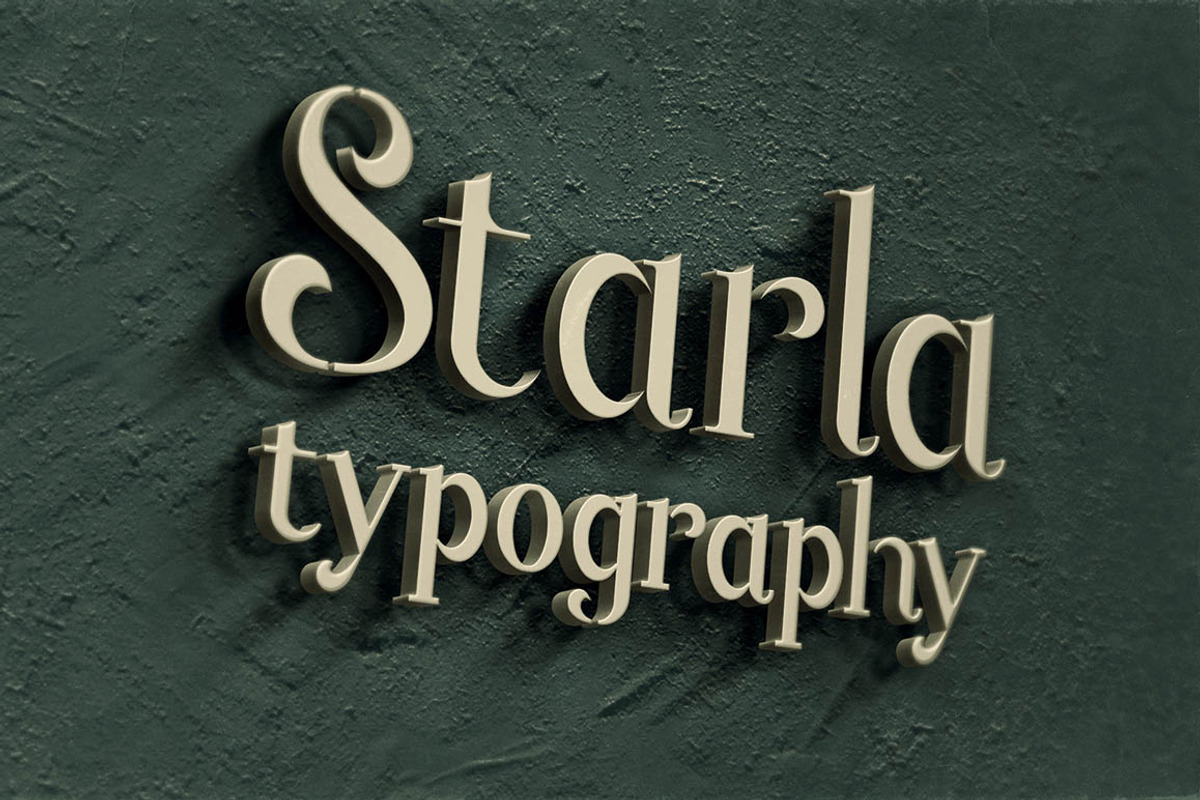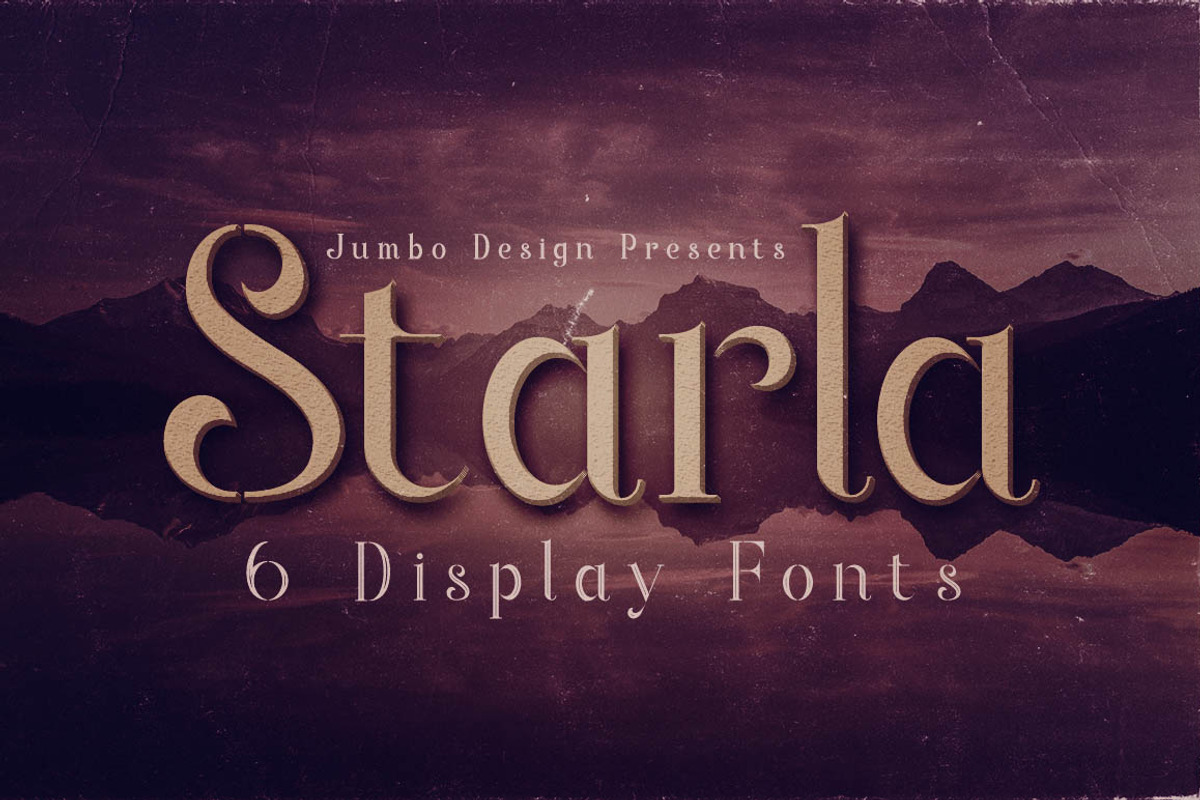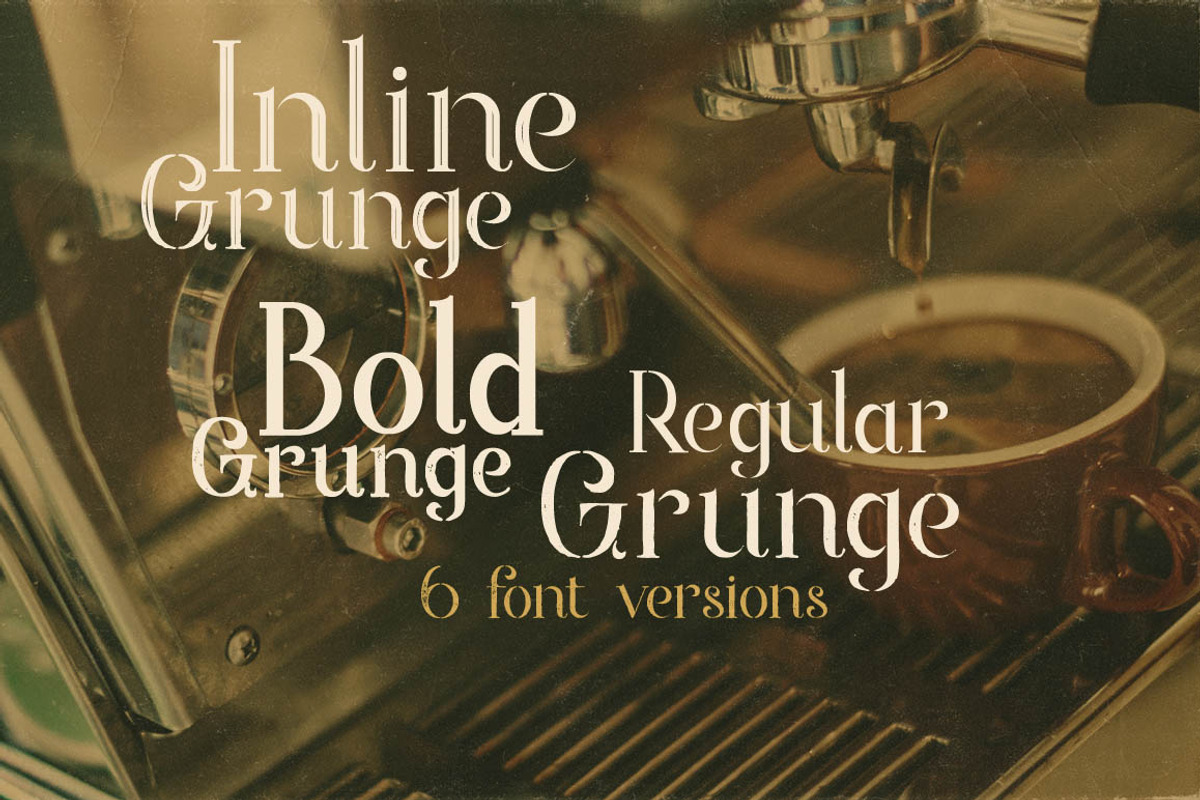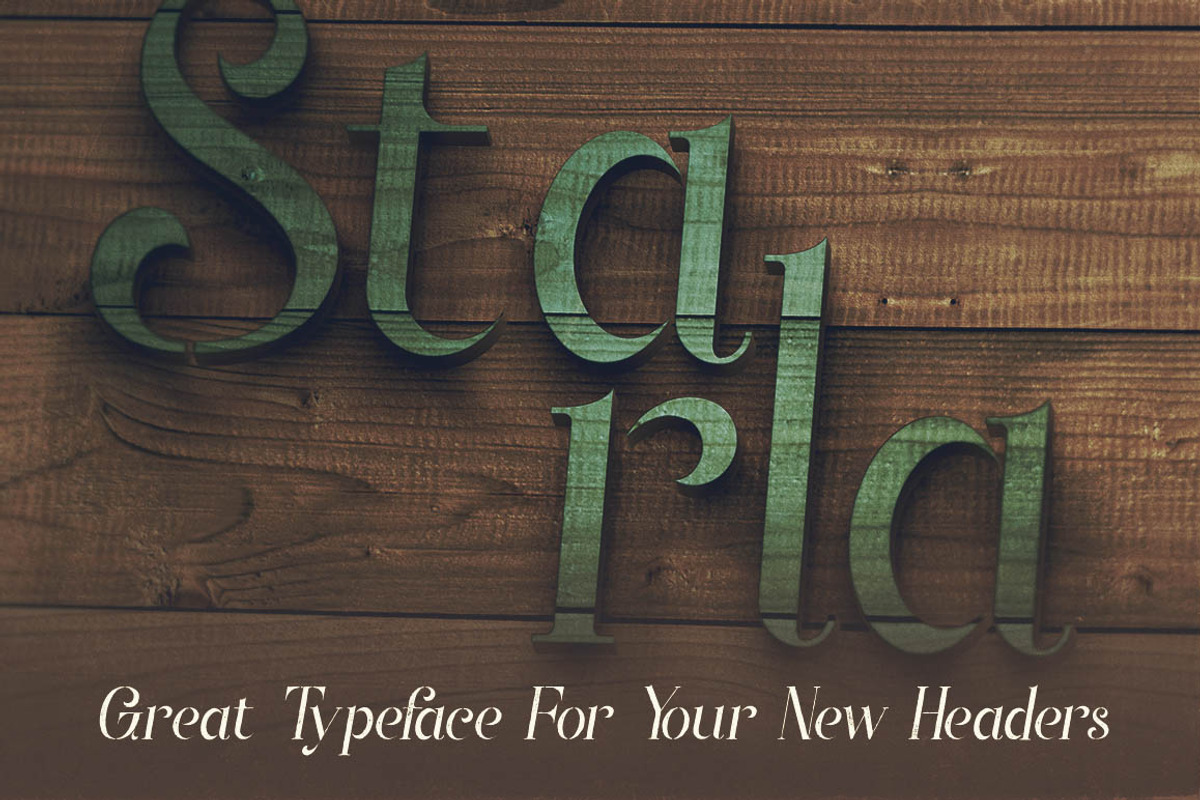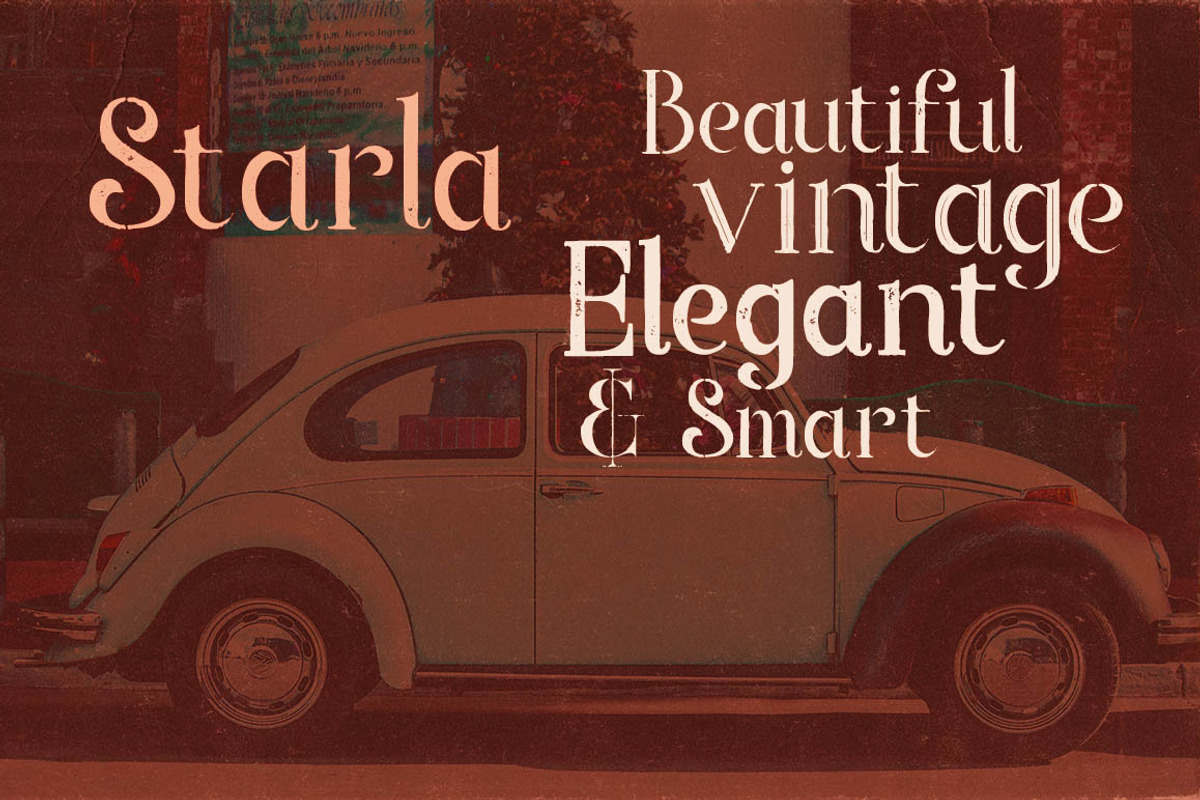
Starla - Display Font
Unique vintage or retro style custom serif font with 6 styles: regular and grunge, inline and inline grunge, bold and bold grunge!
Starla - Display Font by JumboDesign fits naturally into Branding, posters, packaging, typography.